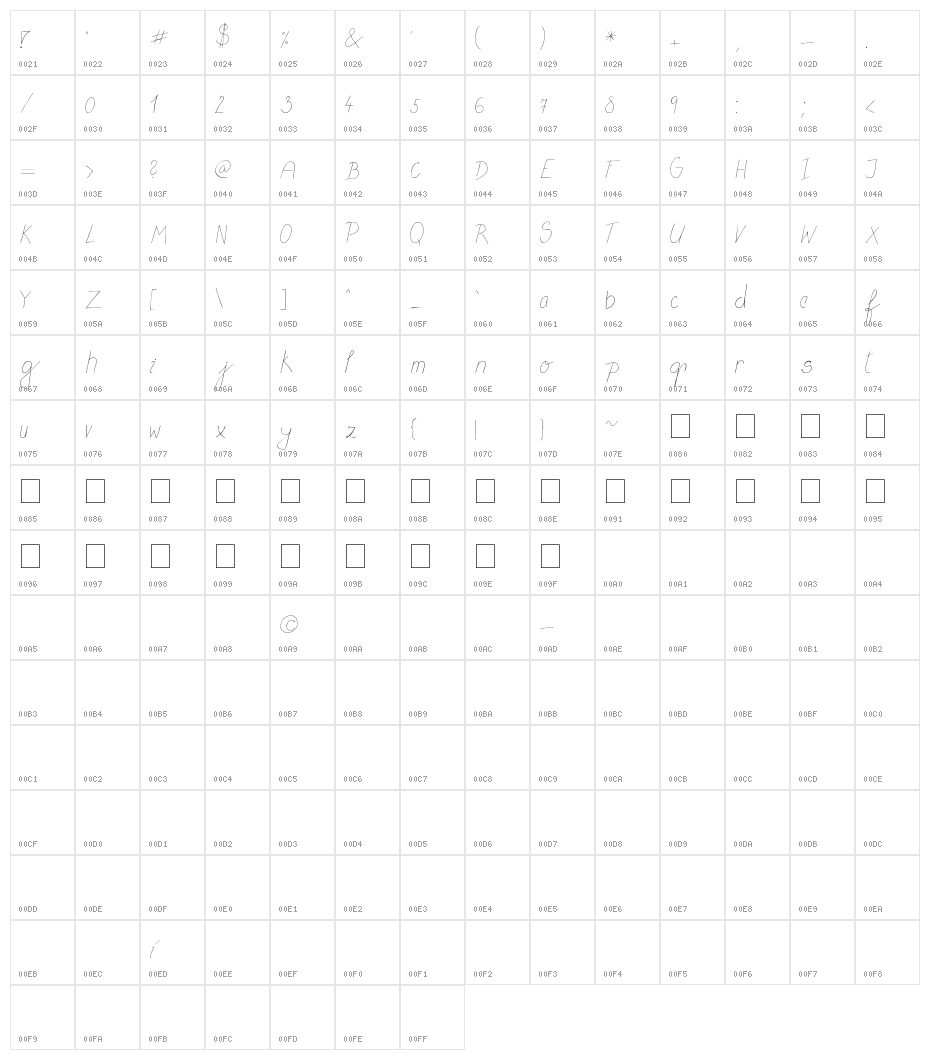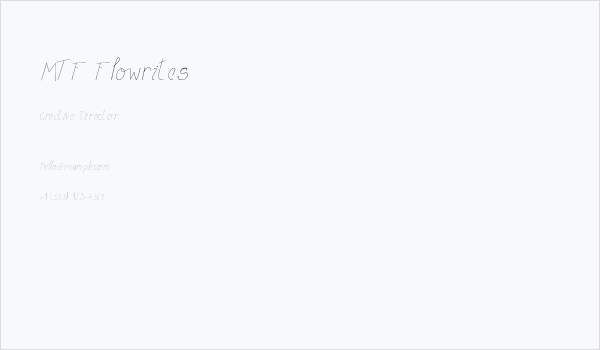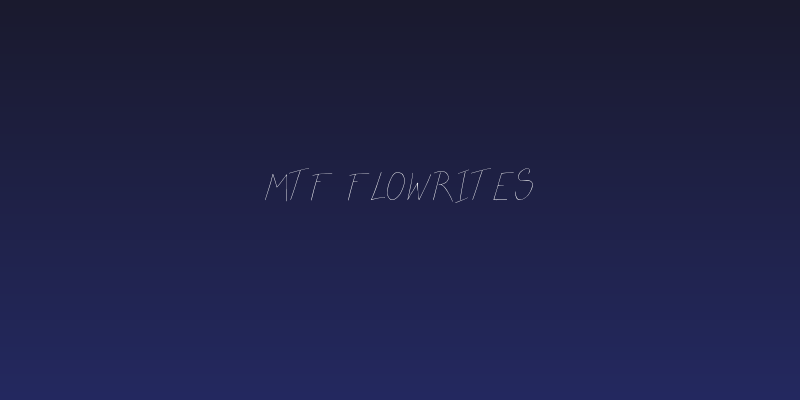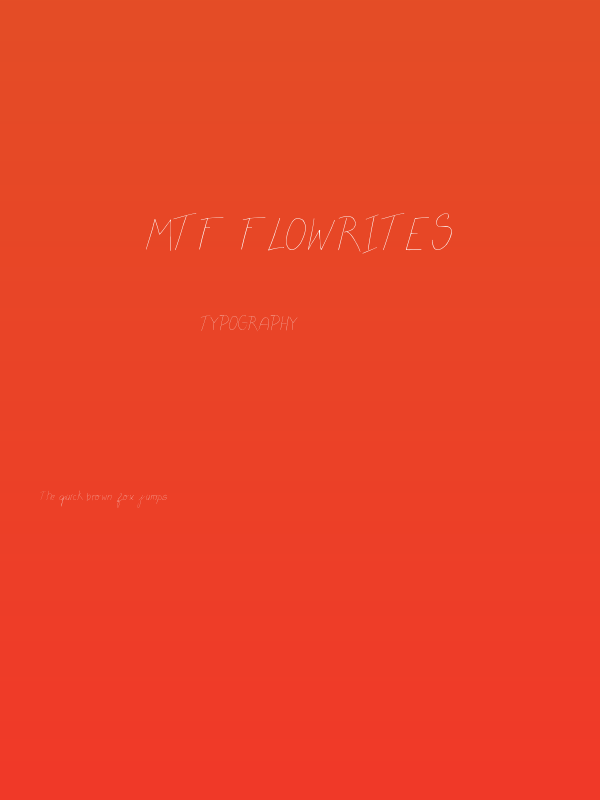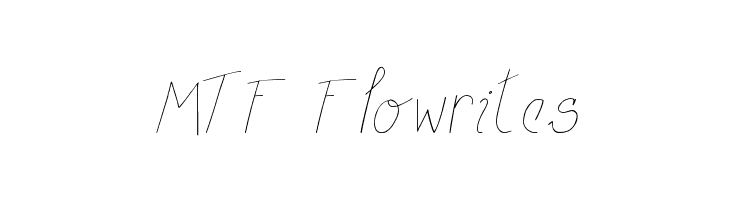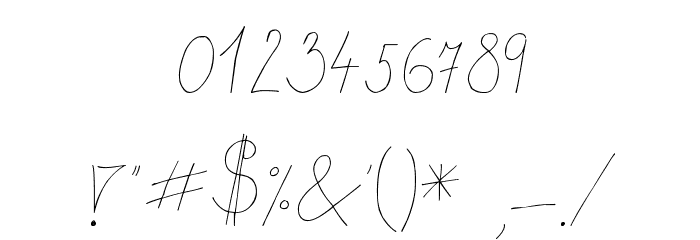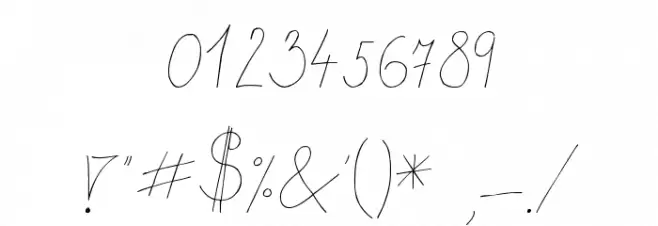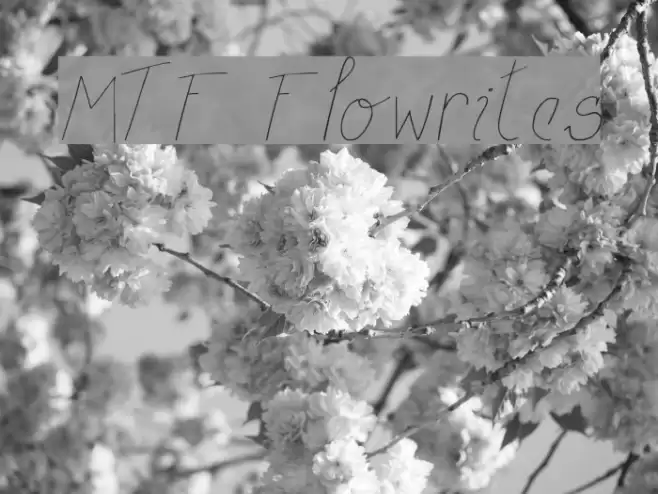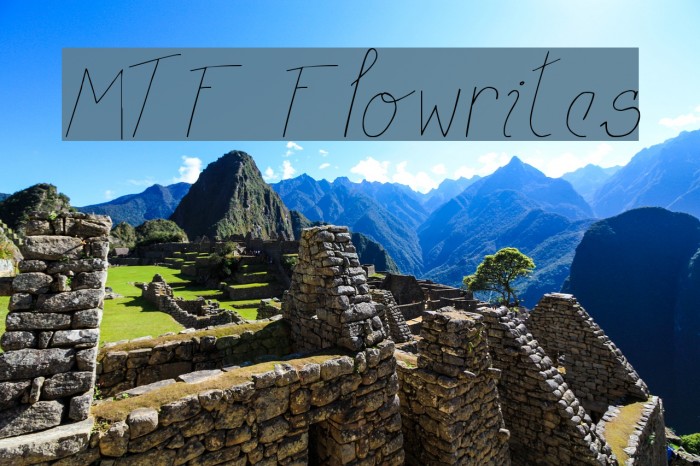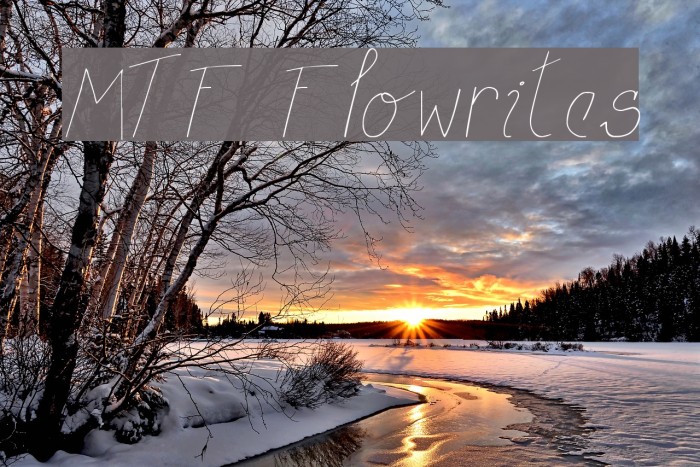
MTF Flowrites Font
MTF Flowrites Description
This font features a delicate, handwritten style with a light and airy feel. The characters are elegantly thin, with a slight slant that adds a touch of sophistication. The uppercase letters are tall and narrow, while the lowercase letters have a more fluid and cursive appearance, creating a harmonious balance. The numbers and special characters maintain the same graceful aesthetic, making the font versatile for various uses. Its overall appearance is both modern and timeless, suitable for projects that require a personal and artistic touch.
| Use Case | Logos, Invitations, Artistic projects |
| Proposed Projects | Ideal for wedding invitations, personal branding, greeting cards, and artistic projects. |